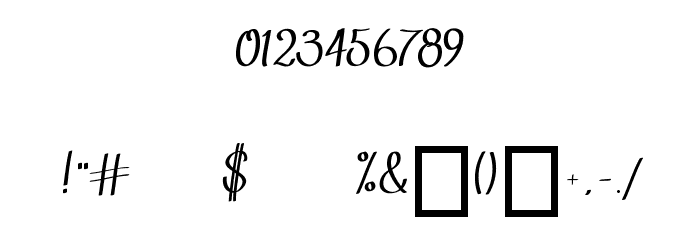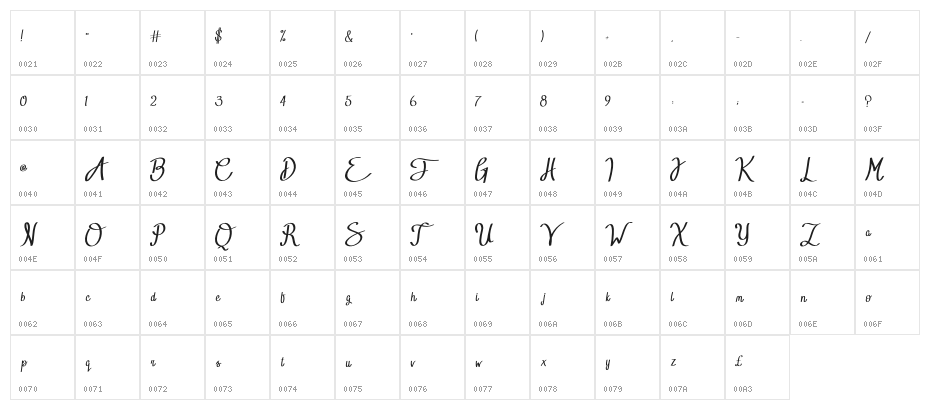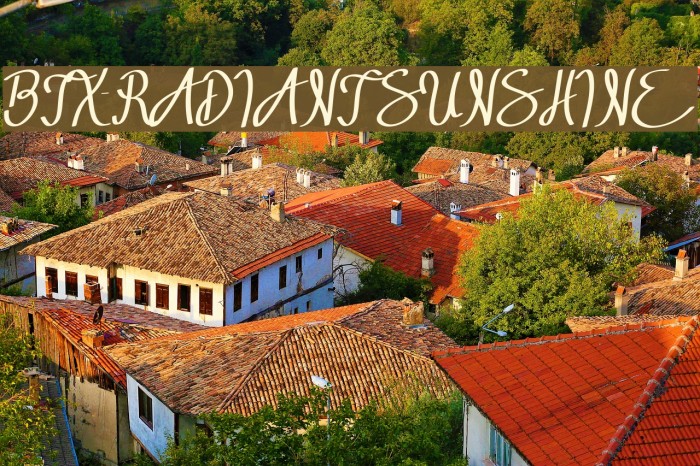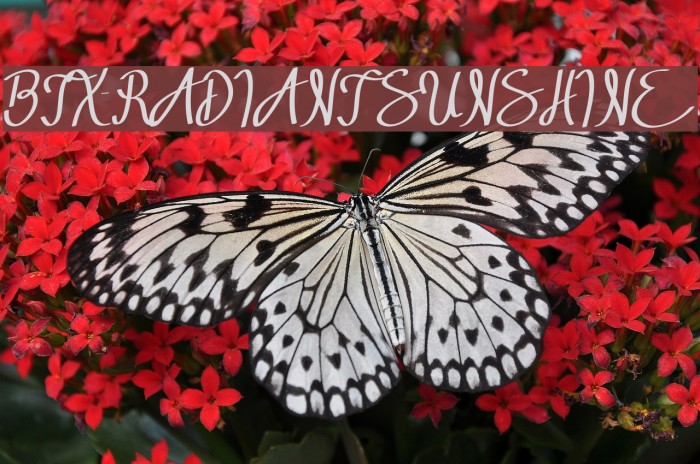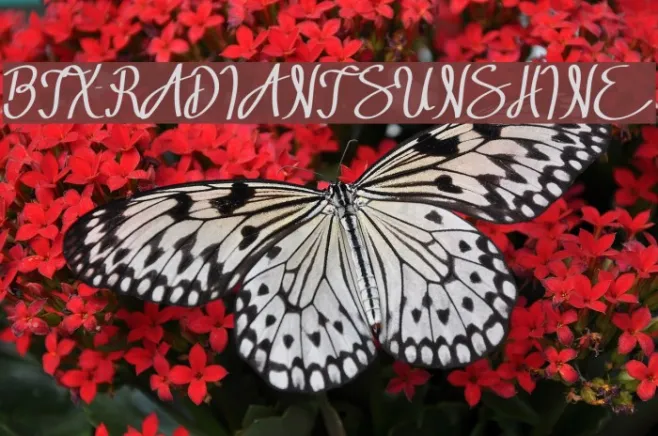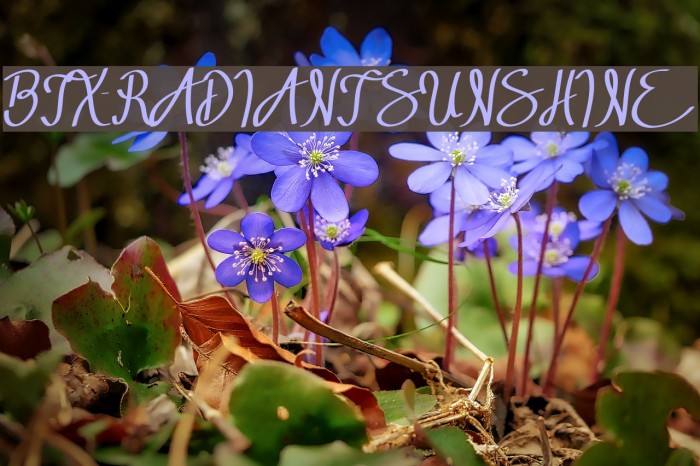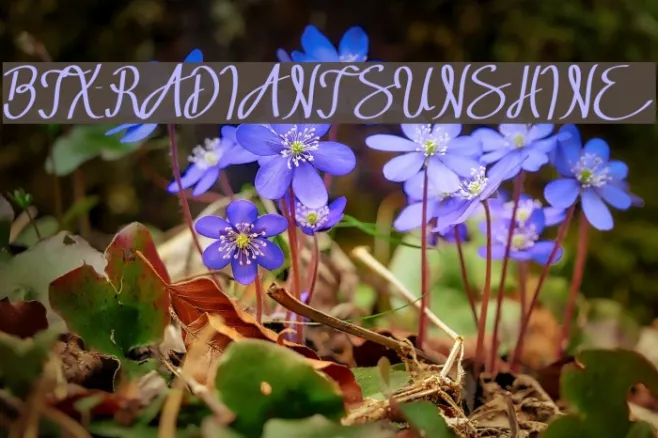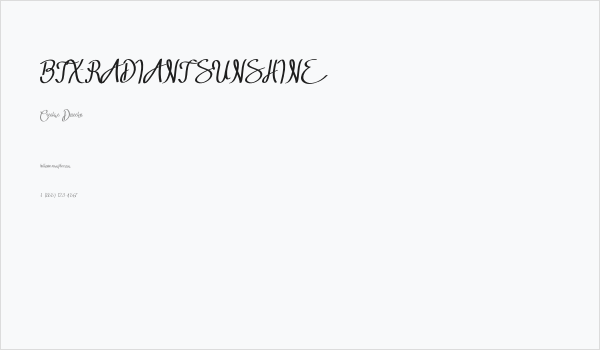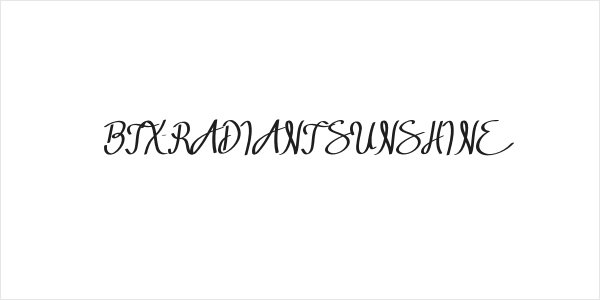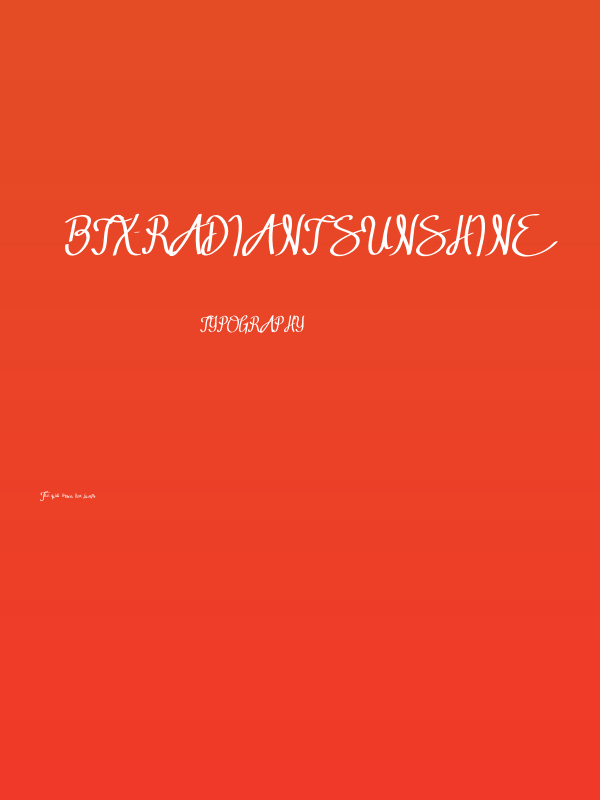
BTX-RADIANT SUNSHINE Font
BTX-RADIANT SUNSHINE Description
This font exhibits a flowing, cursive style with elegant, sweeping curves and a handwritten aesthetic. The uppercase letters are bold and dramatic, with exaggerated loops and flourishes that give them a sense of movement and grace. The lowercase letters maintain this fluidity, though they are more compact and slightly less ornate. The numerals and special characters are consistent with the overall style, featuring similar curves and embellishments. This font is ideal for projects that require a touch of sophistication and elegance, such as invitations, greeting cards, or branding materials.
| Proposed Projects | Ideal for invitations, greeting cards, branding materials, and elegant designs. |